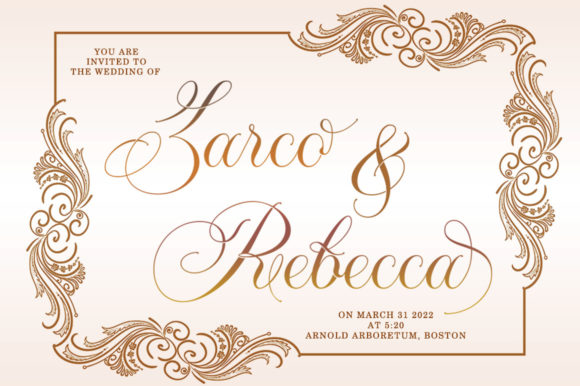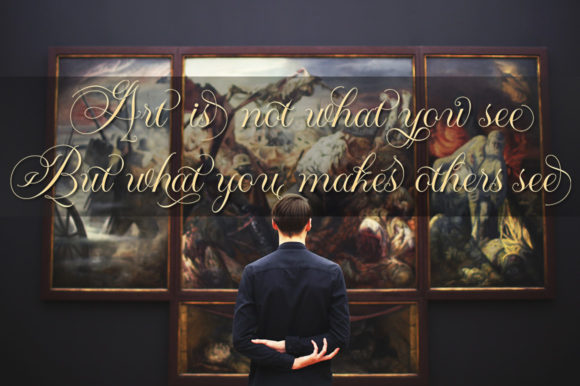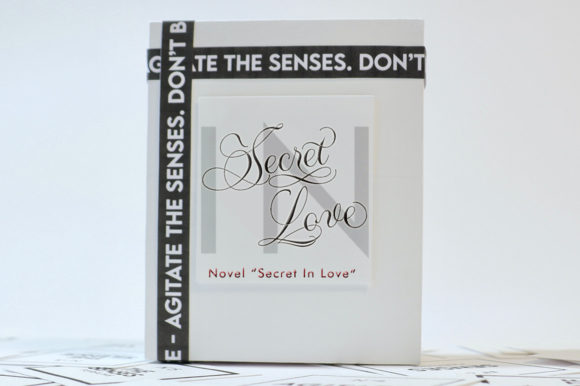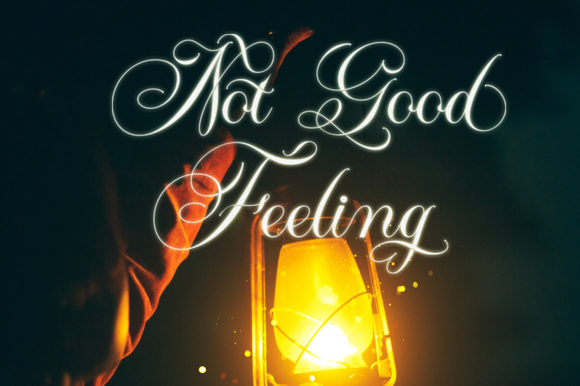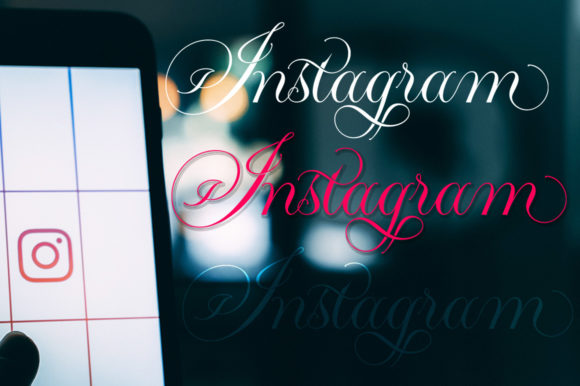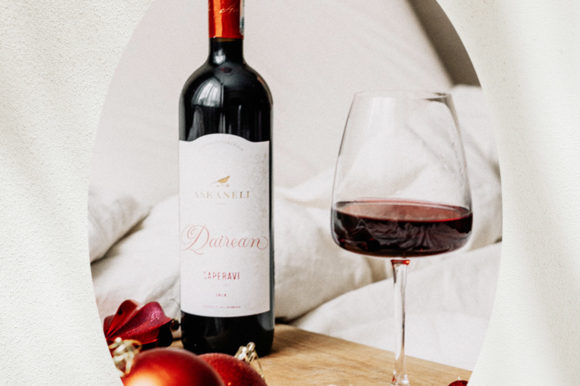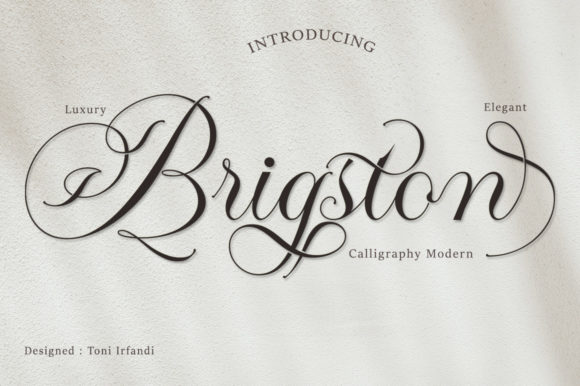
The Elegant Charm of Brigston Font: A Designer’s Delight
I still remember the time I was working on a wedding invitation project, and my client asked for a font that exuded elegance and sophistication. I scoured the internet, tried out countless fonts, but none seemed to fit the bill. That was until I stumbled upon Brigston Font. Its classic script style and distinct flair instantly captured my attention, and I knew I had found the perfect fit. In this article, I’ll share my experience with Brigston Font, its features, and how to make the most of it in your designs.
A Personal Review of Brigston Font
• ✨ Elegant and classic script style that adds a touch of sophistication to any design
• 💫 Beautifully crafted with attention to detail, making it perfect for high-end designs
• 🎨 Versatile and can be used for a variety of design projects, from wedding invitations to logos and business cards
While Brigston Font is an excellent choice for many designs, there are a few things to keep in mind:
• 🤔 Limited availability of stylistic alternates, which may limit its use in certain design projects
• ⚠️ May not be suitable for body text due to its script style, which can be challenging to read in large blocks
The Story Behind Brigston Font
Brigston Font was designed with the intention of creating a classic script font that exudes elegance and sophistication. The designer aimed to craft a font that would be versatile and suitable for a variety of design projects, from wedding invitations to logos and business cards. With its attention to detail and beautiful craftsmanship, Brigston Font has become a popular choice among designers and crafters.
What is Brigston Font best used for? Brigston Font is best used for designs that require a touch of elegance and sophistication, such as wedding invitations, thank you cards, quotes, greeting cards, logos, and business cards.
Is Brigston Font suitable for body text? No, Brigston Font is not suitable for body text due to its script style, which can be challenging to read in large blocks.